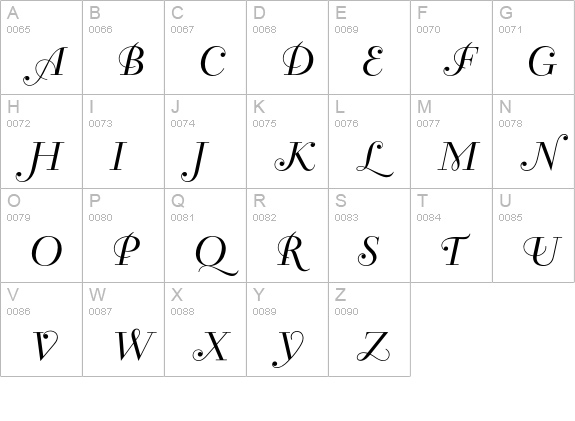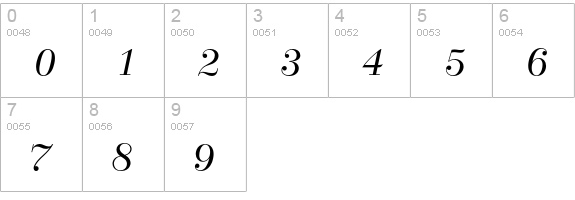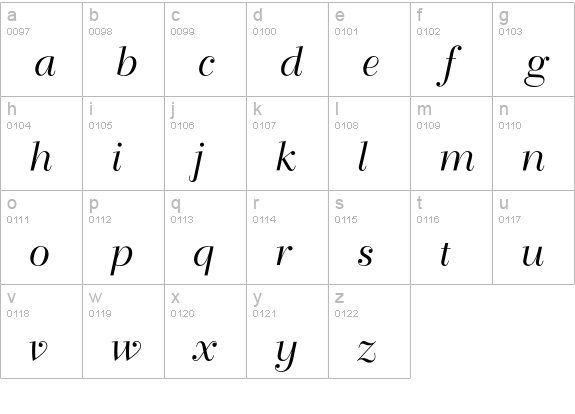
Bellevue BQ font is a modern and elegant typeface that exudes sophistication and style. With its clean lines and contemporary design, this font is perfect for a wide range of design projects, from branding to editorial. The sleek look of Bellevue BQ font makes it ideal for logos, titles, and headings that need to make a bold statement. What's even better is that Bellevue BQ font is available for free download at FontsMarket.com. This means that you can easily access this high-quality font without having to spend a dime. Whether you're a professional designer looking for a versatile typeface or someone just starting out in the world of design, Bellevue BQ font is a fantastic choice that won't break the bank. Download it today and elevate your designs with this stunning font.